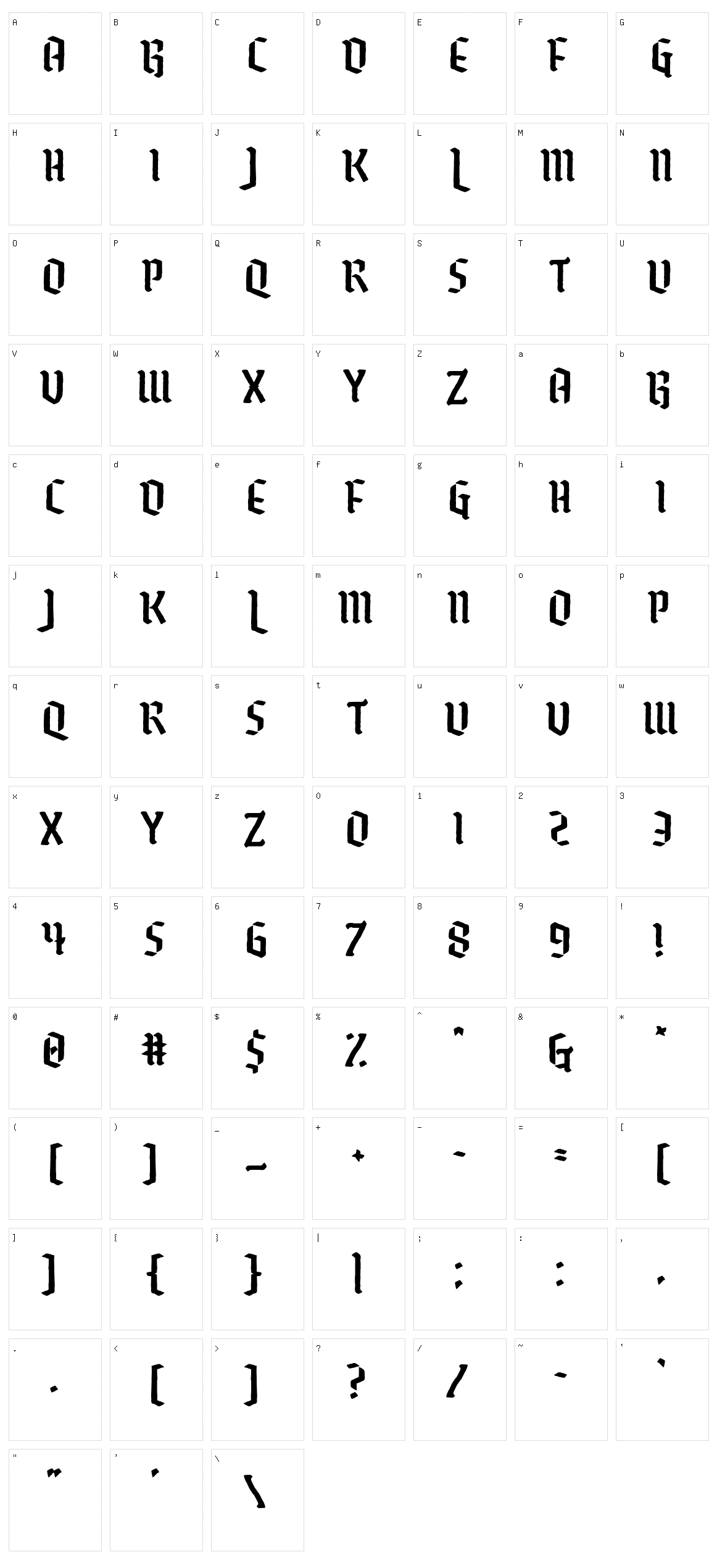
The free font Romantic Chemicals is carefully designed by Chequered Ink, showcasing a thoughtful balance of creativity and usability and belongs to the Gothic font family. When you download the ZIP file, it contains only 24.86 KB of font files, making it lightweight and quick to download. Please review the license details below to understand permitted usage and distribution rights. If license information is not available, we recommend using this font for personal projects only or contacting the author directly for commercial usage permissions.